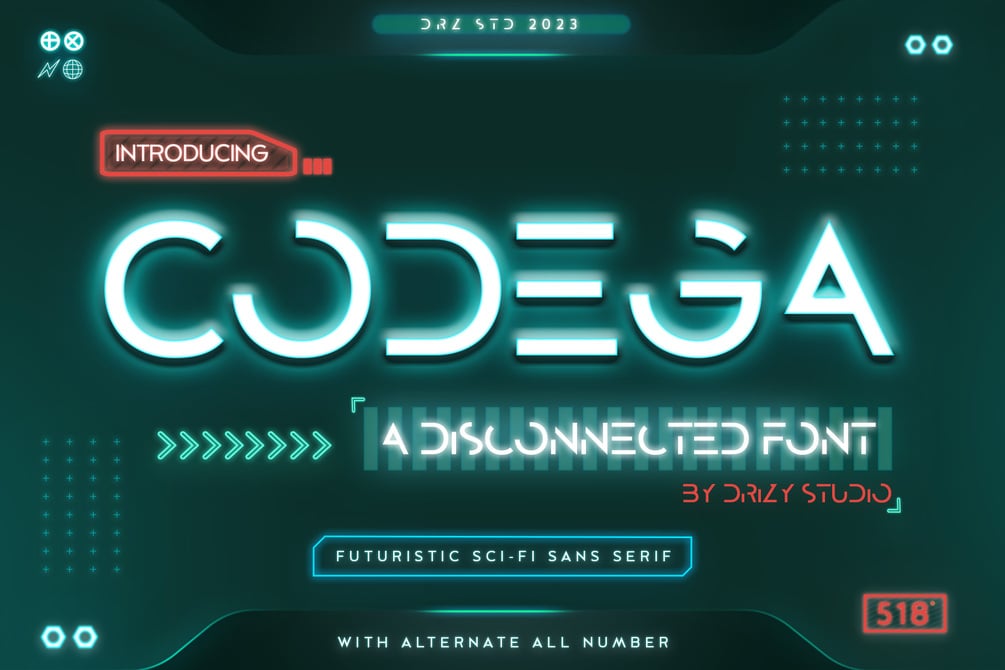
Codega Demo Font
This font challenges the norms of coherence, presenting each character as a unique entity floating in the digital abyss. The disconnection between the letters evokes a sense of fragmented data, echoing the complexities of an interconnected world where information flows through cyberspace with mesmerizing unpredictability.
Codega Disconnected embraces the notion of imperfection, creating an abstract and enigmatic aura. Each character appears as if plucked from a futuristic data stream, showcasing jagged edges and broken forms that somehow coalesce into an otherworldly language of their own.
Inspired by virtual reality environments and holographic interfaces, the font incorporates glitch-like elements, simulating digital artifacts.